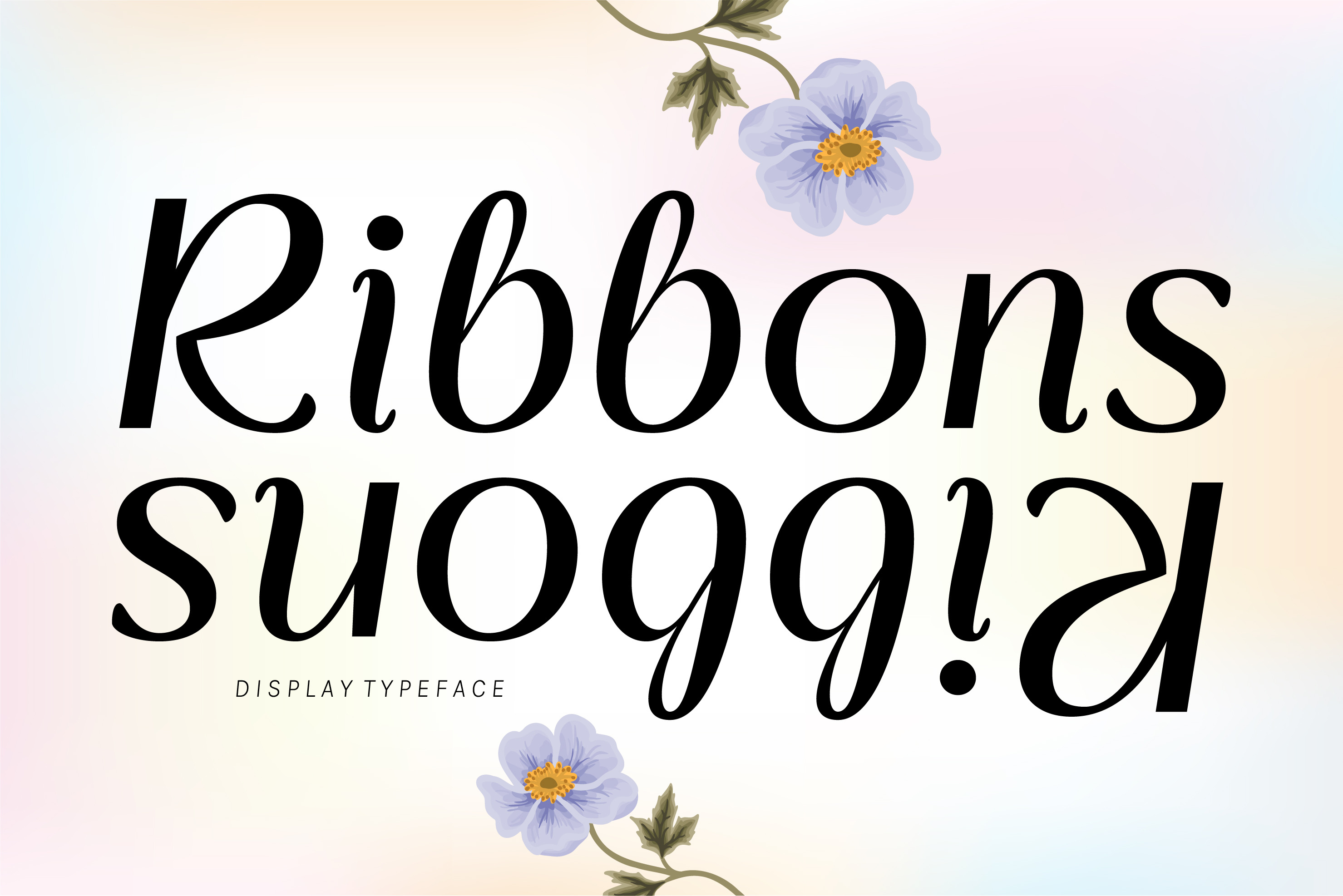
RIBBONS - Display Font
Introducing Ribbons--a display sans serif typeface inspired by soft curves from silk ribbons and decorative bows. This typeface is perfect for any of your design needs, such as branding design, book cover, posters, magazine, logo, etc.